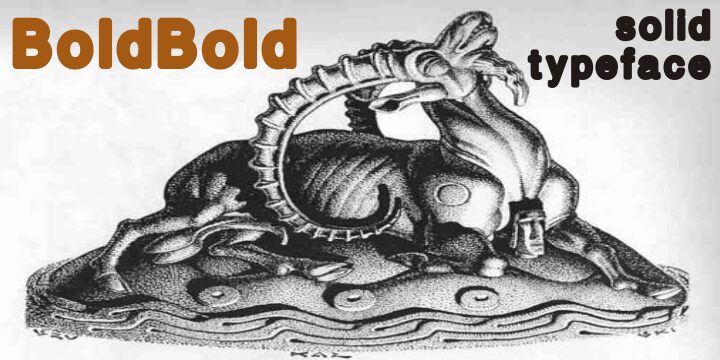
boldbold
Boldbold font by Intellectadesign is a free ultra-heavy sans serif typeface that wears its name proudly. Every letter is chunky, rounded, and packed tight, so words feel like solid blocks of ink—soft at the edges, but impossible to ignore. The smooth curves keep this beast of a font friendly rather than aggressive, giving headlines and logos a loud yet approachable voice.
Using boldbold font, you can punch up posters, thumbnails, social media graphics, product packaging, stickers, event titles, or playful branding that needs to shout in one word. This free font really shines at large sizes where its pillowy shapes and dense rhythm can grab attention; pair it with a light, neutral sans for small text to keep things readable and balanced.